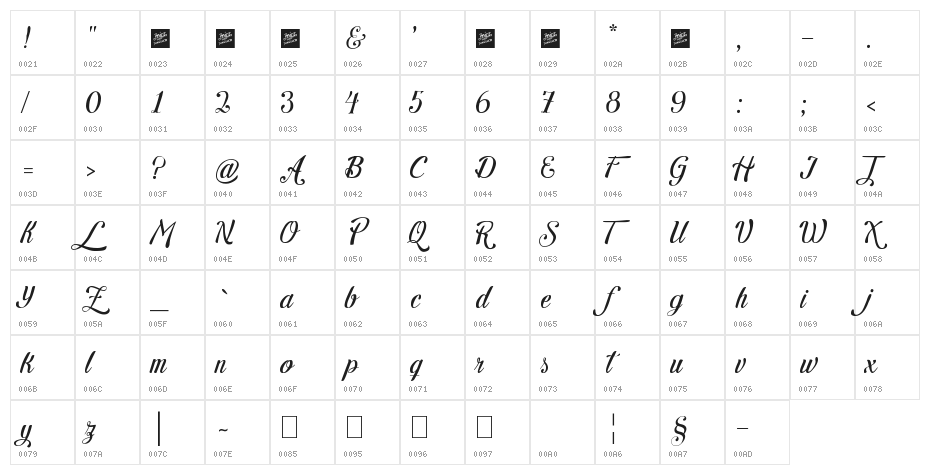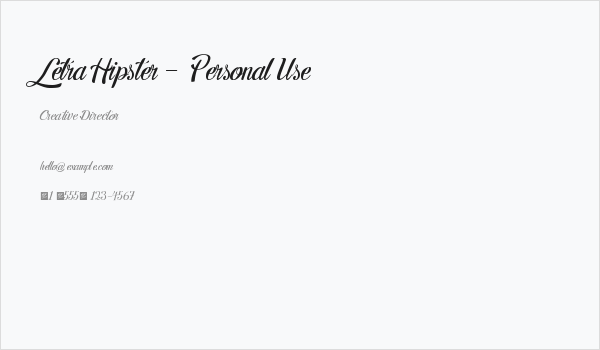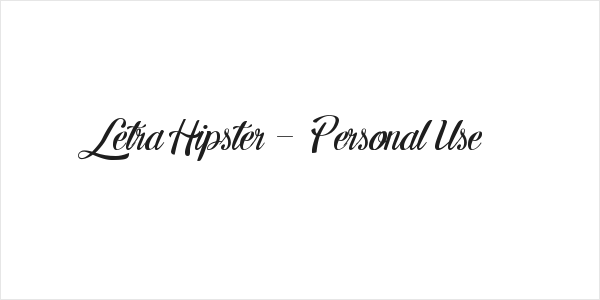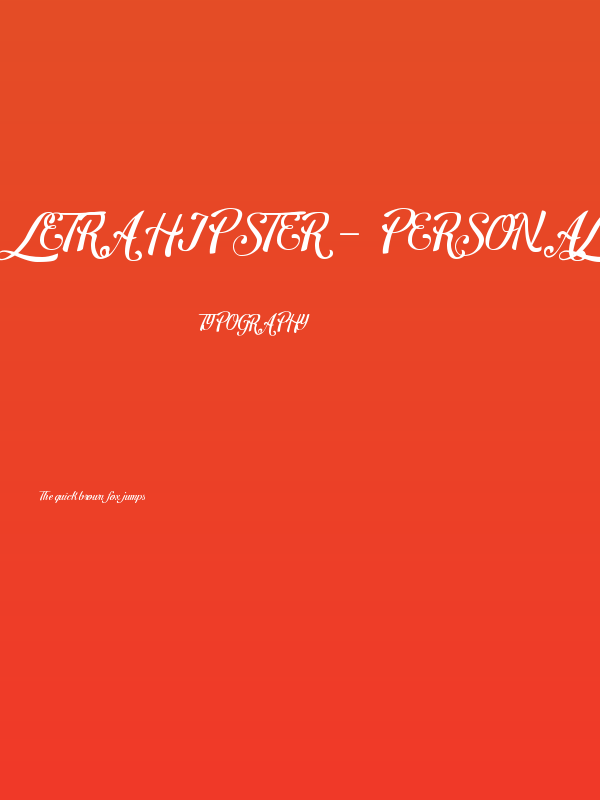
Letra Hipster - Personal Use Font
Letra Hipster - Personal Use Description
This font features an elegant and flowing script style, characterized by its cursive and connected letterforms. The uppercase letters are ornate, with sweeping curves and flourishes that give a sense of movement and sophistication. The lowercase letters maintain a consistent flow, complementing the uppercase with their smooth and rounded shapes. Numbers are styled to match the overall aesthetic, with a slight slant and decorative elements. Special characters are integrated seamlessly, maintaining the font's cohesive look. This font exudes a sense of elegance and is suitable for projects that require a touch of class and personality.
| Use Case | Logos, Invitations, Decorative Headlines |
| Proposed Projects | Ideal for wedding invitations, elegant branding, personal stationery, and decorative headlines. |